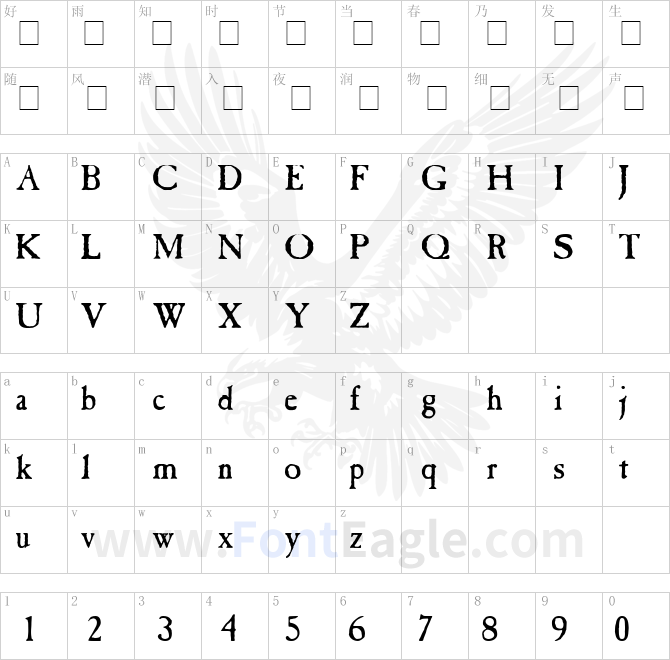
CasablancaAntique is a great font, widely used in graphic design, single-page menu design, poster design and other fields, and is deeply loved by designers.CasablancaAntique download.